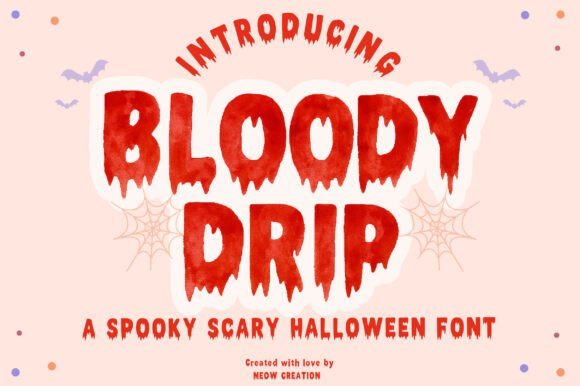
Get Ready to Haunt with the Bloody Drip Font
As a designer, have you ever stared at a blank screen, waiting for the perfect font to bring your spooky creation to life? I know I have. The flickering lights of my workspace seemed to mock me, until I stumbled upon the Bloody Drip Font. This eerie typeface is a game-changer for any design project that needs a chilling effect.
The Bloody Drip Font is a bold and playful font that’s perfect for Halloween, horror designs, and creepy projects. Its dripping letter style adds a scary yet whimsical touch to posters, T-shirts, invitations, and digital crafts. Whether you’re creating haunted house flyers or zombie party themes, this font is a must-have in your design arsenal.
Bloody Drip Font Key Features
- Character Set: The font includes a comprehensive character set, covering Latin, Cyrillic, and Greek alphabets, as well as punctuation marks and symbols.
- Unique Characteristics: The font features a unique, hand-drawn design with a blood-inspired aesthetic, making it perfect for horror, thriller, and dark-themed projects.
- Font Style: Bloody Drip Font is a sans-serif font with a bold, condensed design, ideal for use in titles, headings, and other display text.
Bloody Drip Font Review
I’ve had the chance to work with the Bloody Drip font, and I must say it’s a unique and attention-grabbing choice for any project. Here are some things that work well:
- ✨ The font’s distressed texture and bloody effects give it a gritty, edgy feel that’s perfect for horror, thriller, or crime-related designs.
- ✨ The font is highly customizable, allowing users to adjust the blood splatter and texture to their liking.
- ✨ The font is available in a wide range of weights, from light to bold, making it suitable for various design applications.
- ⚠️ The font may be too over-the-top for more subtle or professional designs, potentially overpowering the message or content.
- ⚠️ The bloody effects can be distracting or unpleasant for some users, especially those with sensitivities to gore or violence.
- ⚠️ The font’s distressed texture can sometimes be difficult to read, especially at smaller font sizes.
Overall, the Bloody Drip font is a bold and attention-grabbing choice that’s perfect for specific design projects. While it may not be suitable for every design need, it’s a great option for those looking to make a statement or create a sense of drama and tension.
The Bloody Drip font is ideal for creating a spooky or horror-themed design. Use it to add a touch of eeriness to your text. You can also use it for creative typography projects or to add a unique touch to your branding.
Some common use cases include:
– Horror movie posters
– Spooky decorations
– Horror-themed merchandise
– Creative typography projects